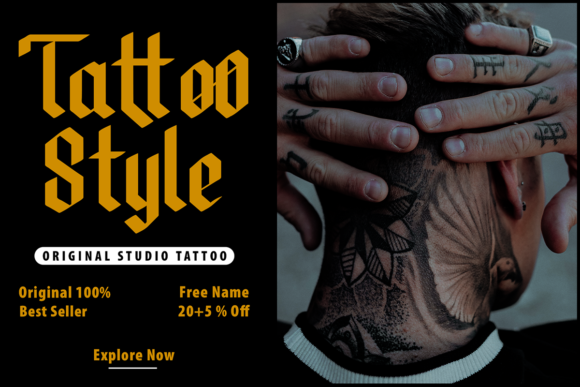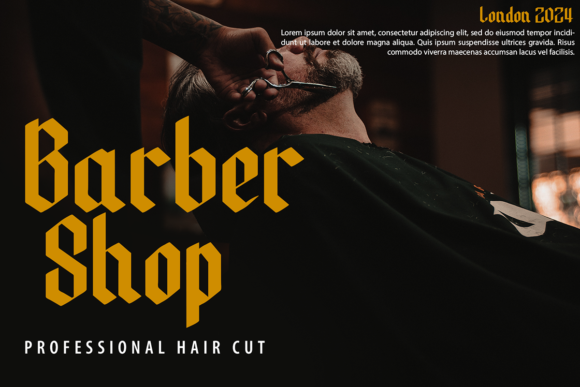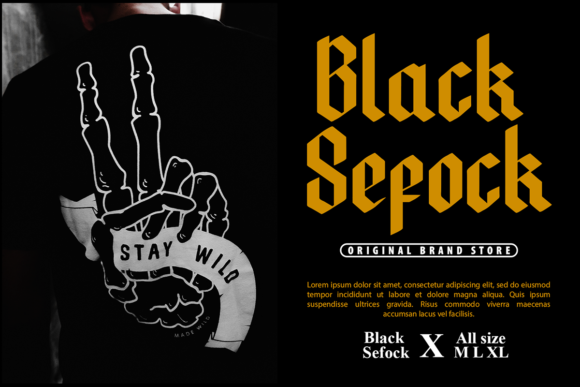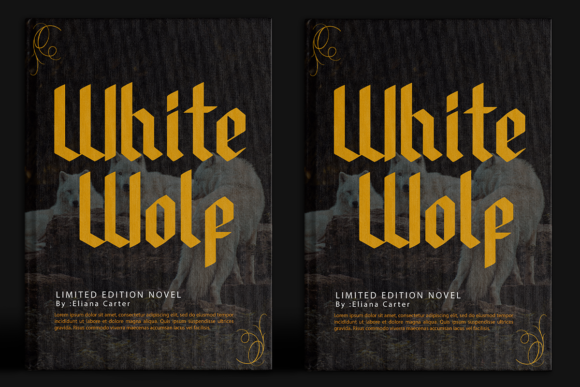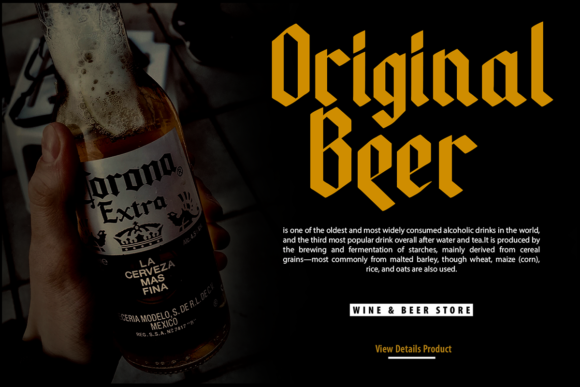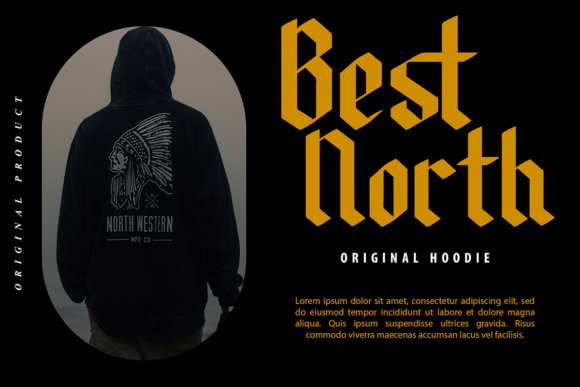
The Perfect Touch for Your Designs: Black Pentacle Font
Have you ever stared at a blank canvas, searching for the perfect font to bring your creative vision to life? The struggle is real, but what if I told you that there’s a font that can add a unique and assertive touch to your designs? For designers looking to make a statement, the Black Pentacle Font is an excellent choice.
Black Pentacle Font is a highly detailed blackletter font that exudes power and elegance. Its uniquely shaped letters will easily match a wide range of creations, from posters and flyers to logos and typography-based art. Whether you’re working on a project that requires a bold and mysterious vibe or a sense of sophistication and luxury, this font is sure to impress.
As a valuable addition to any designer’s toolkit, the Black Pentacle Font offers endless possibilities for creative expression. Its versatility and distinct style make it an excellent choice for designers who want to stand out from the crowd and create truly unforgettable designs.
Black Pentacle Font Key Features
- Unique Characteristics: Distinctive, gothic-inspired design with intricate details and bold lines; suitable for various design applications, including logos, typography, and branding
Black Pentacle Font Review
Overall, I think the Black Pentacle font is a great addition to any occult-inspired design project. ✨ Its gothic, mystical vibe is sure to transport your users to a world of ancient magic and mystery.
The font’s bold lines and intricate details make it perfect for titles, headings, and any other text that needs a touch of drama and sophistication. ✨ The font’s various weights and styles also offer a lot of flexibility, allowing you to customize it to fit your specific design needs.
- ⚠️ The font’s readability can be a bit of an issue, especially at smaller font sizes. The intricate details can make it difficult to discern individual letters.
In conclusion, the Black Pentacle font is a great choice for designers looking to add a touch of mysticism and drama to their projects. While it may have some limitations, its unique style and versatility make it a valuable addition to any design arsenal.
The Black Pentacle Font is ideal for designs that require a bold, mysterious, or edgy feel.
Use it for:
- Dark-themed designs, such as horror movies or gothic-inspired art.
- Occult or mystical designs, such as tarot cards or astrology-inspired art.
- Edgy or avant-garde designs, such as punk rock-inspired art or abstract designs.